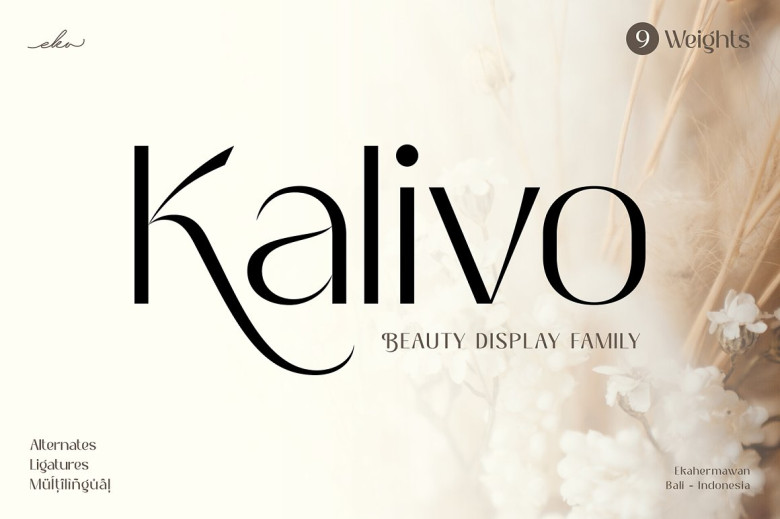
Kalivo Font
Introducing, Kalivo Beauty Display Font Family this high contrast font fit for many different projects. Such as logo, branding, poster, magazines, labels, merchandise, invitation, presentation, advertising, quotes and so much more! Kalivo also include alternate characters PUA Encoded and ligatures with 9 weight to gives you a wide range for create an unique typographic design results.
Kalivo Display Sans Font